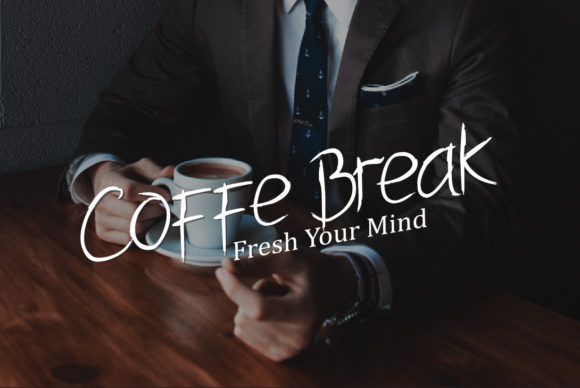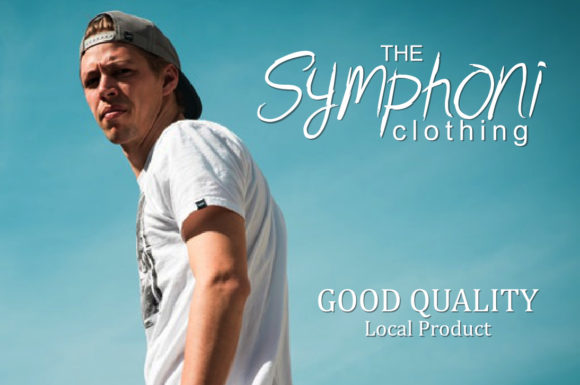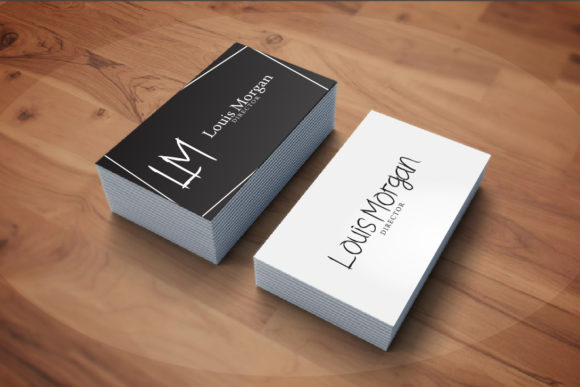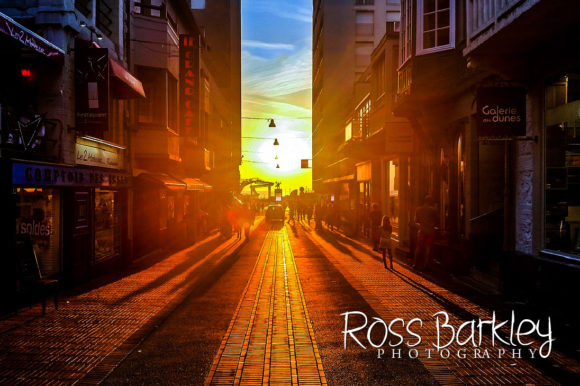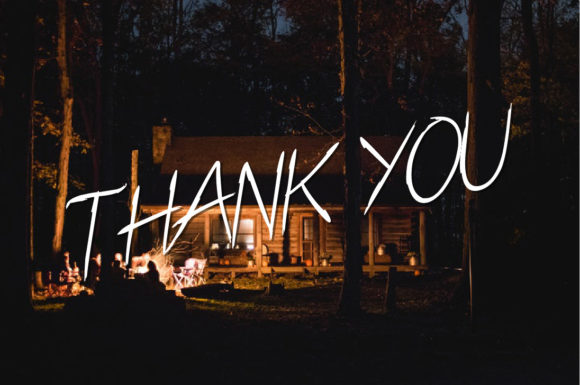
Black Horse Font
About Black Horse Font
The Black Horse is an unique typeface. It’s perfect for adding an organic feel to your signatures, logo, quotes, watermarks, business cards, and every other design which needs a striking touch.